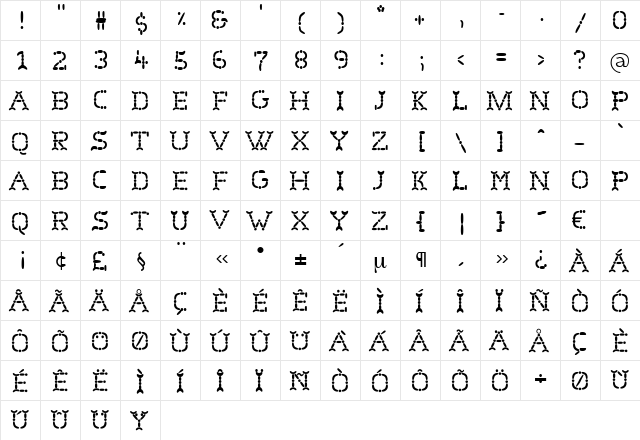
Butcher Regular
Design Context for Butcher Typeface
Butcher is a composed and adaptable typeface that performs quietly and consistently across a wide range of design contexts.